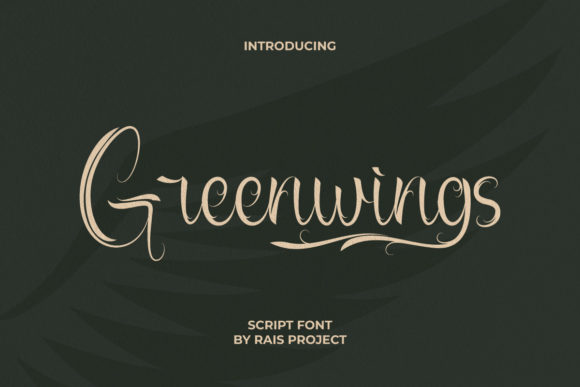
Behold, the Greenwings Font, an exquisite and enchanting creation that dances across the pages like dew-kissed petals in the morning sun. An ode to the beauty of nature, it draws inspiration from the soaring flight of birds, the gentle curves of leaves, and the flowing grace of water. With its elegant swirls and flourishes, Greenwings is a visual symphony, a testament to the power of creativity and imagination.
Immerse yourself in the world of Greenwings, where dreams take flight and stories come alive. Let your imagination soar as you craft logos that speak volumes, branding that captivates, and invitations that hint at a world of magic and wonder. With Greenwings at your fingertips, transform your social media posts into works of art, create stationery that sparks joy, and design wedding invitations that evoke love and romance.
Greenwings is not just a font; it's an experience, a journey into a realm of endless possibilities. As you explore its depths, you'll discover a treasure trove of glyphs and swashes, each a unique character waiting to be brought to life. Unleash your creativity and let Greenwings guide you as you weave tales of adventure, paint pictures with words, and create designs that leave a lasting impression.
Feel the power of Greenwings as it transforms your words into art, your ideas into masterpieces. Whether you're a seasoned designer or just starting out, Greenwings is your muse, your companion, your gateway to a world of design possibilities. Embrace its beauty, let it inspire you, and watch as your creative visions take flight.